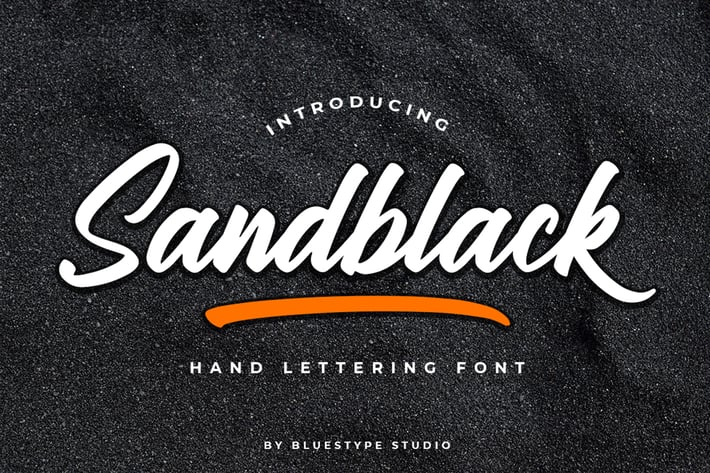
Sandblack Lettering Font
This is our latest product called SandBlack.
SandBlack is a modern calligraphy with beautiful and cool curves.
- Stylistic Sets
- Swash